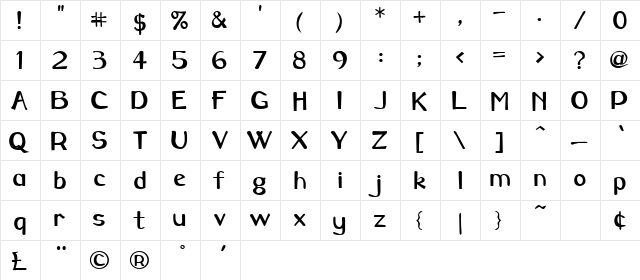
CarawayBold Regular
Design Context for CarawayBold Typeface
CarawayBold is a composed and adaptable typeface that performs quietly and consistently across a wide range of design contexts. The heavy weight commands attention and anchors typographic hierarchies.
Pro Tip: Pair CarawayBold with a font of contrasting weight or personality to build a more expressive typographic hierarchy.